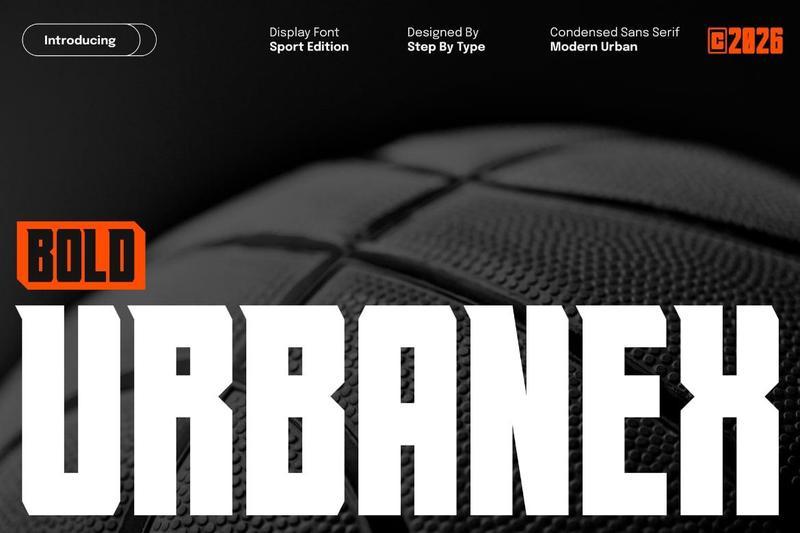
Urbanex is a bold, high-impact display font built for the streets. With its powerful letterforms, sharp edges, and aggressive character, Urbanex channels the raw energy of urban culture making it the perfect typeface for projects that demand attitude, edge, and visual dominance.
From music branding and street culture graphics to sports posters and editorial layouts Urbanex makes every headline hit hard and leave a lasting impression.
Street & urban brand identity
Music artist branding & album covers
Sports branding & event posters
Editorial & magazine layouts
Logo & headline typography
Social media headers & thumbnails
YouTube thumbnails & digital ads
Display signage & banners